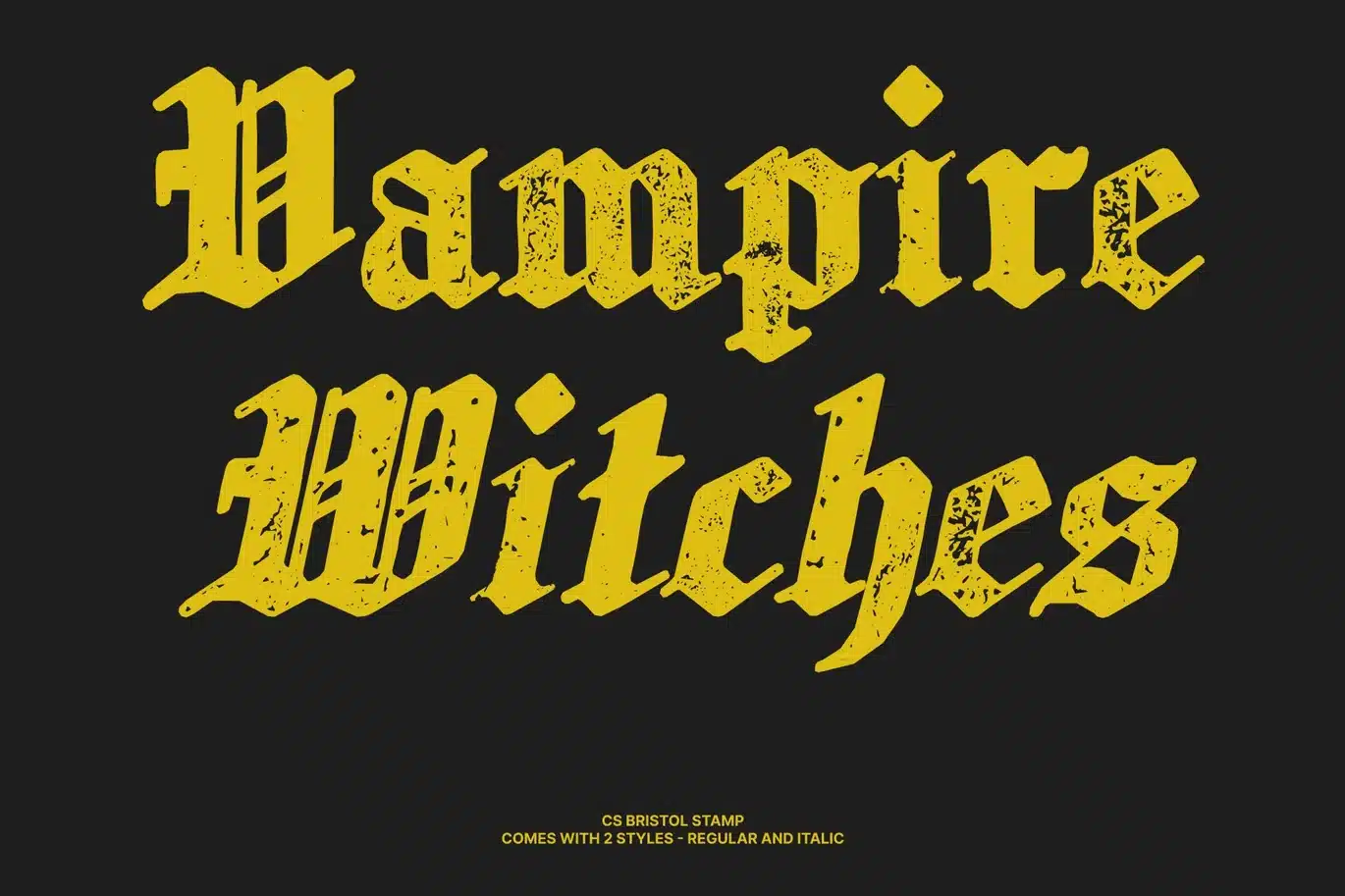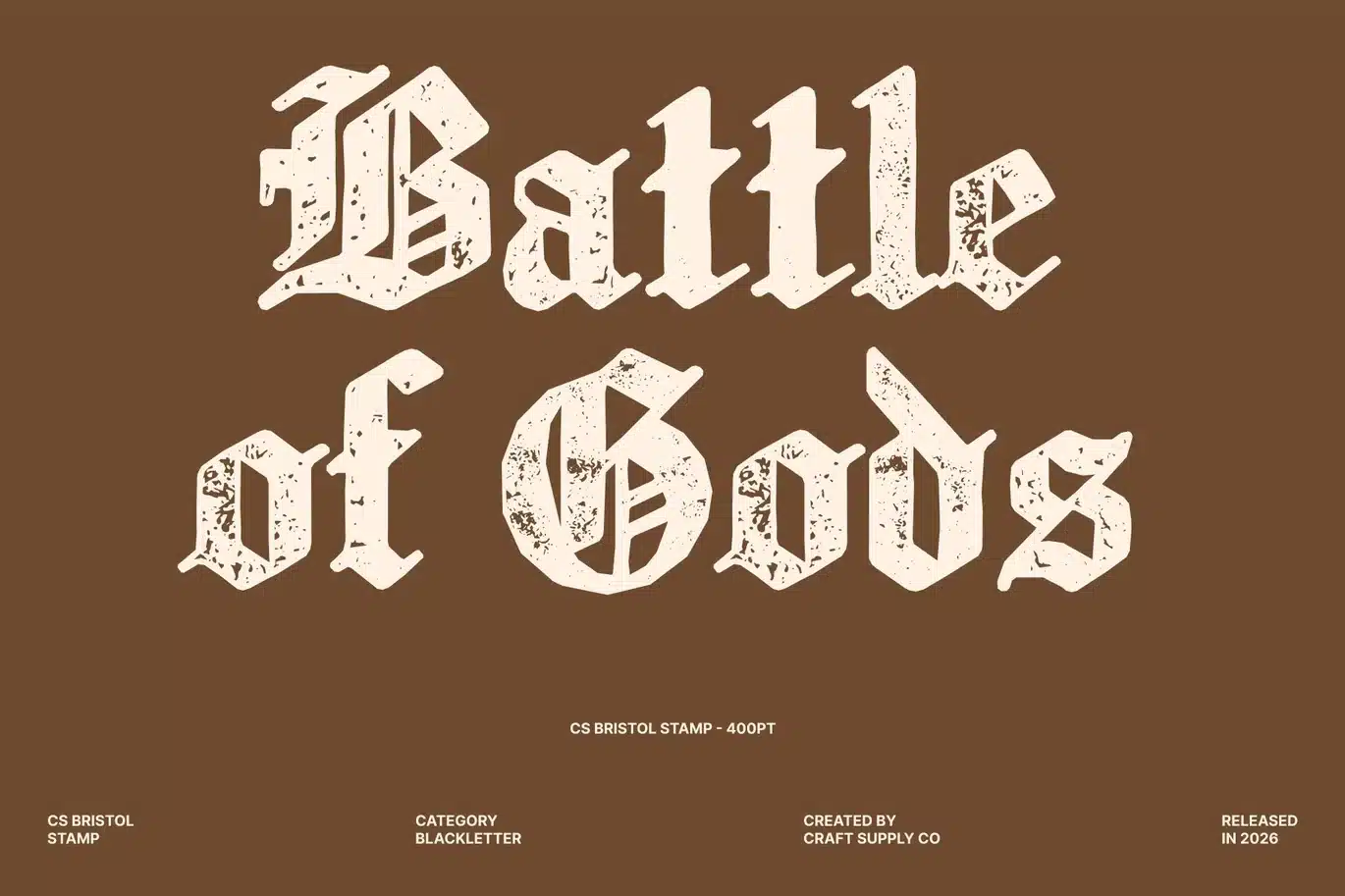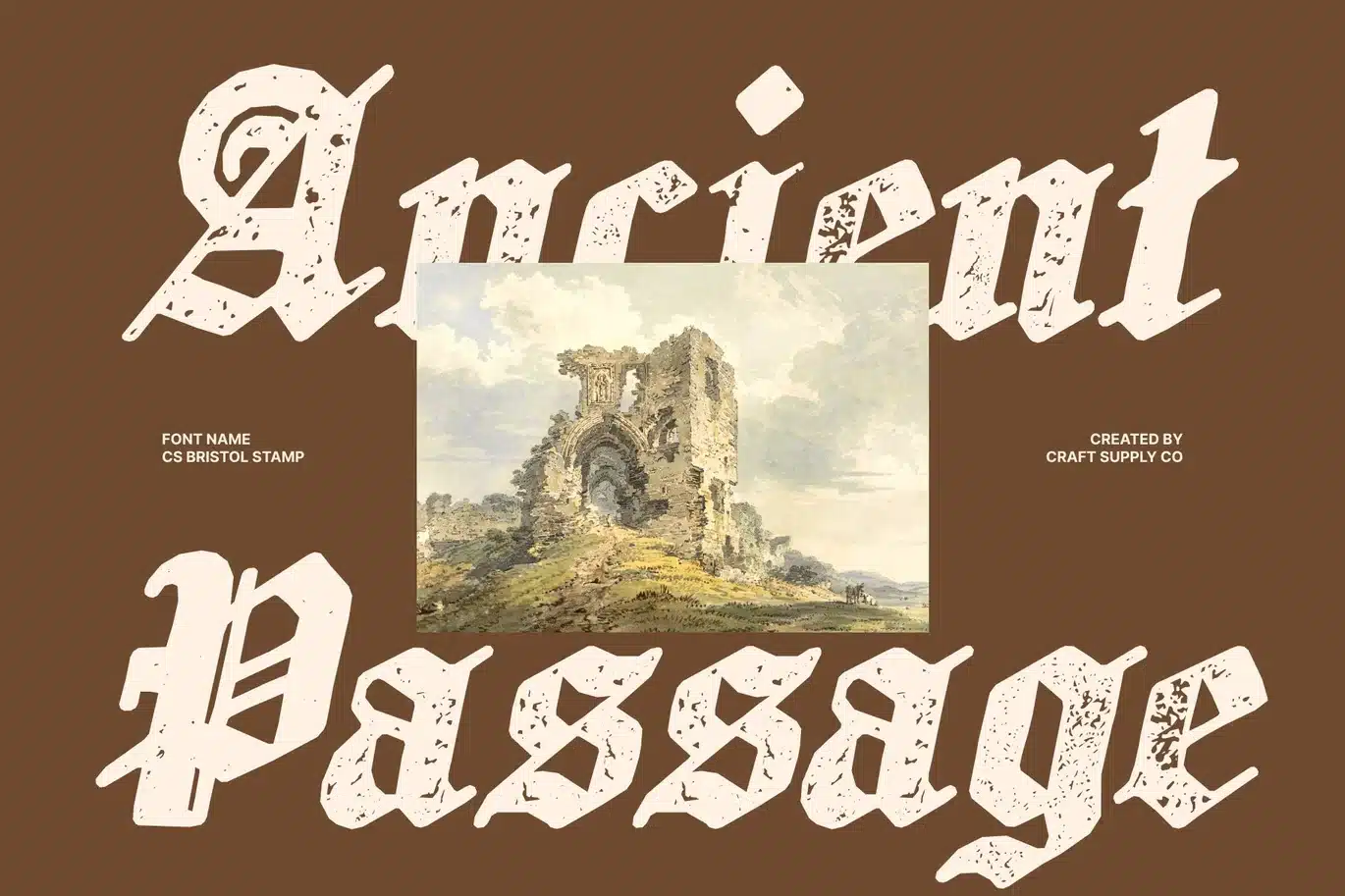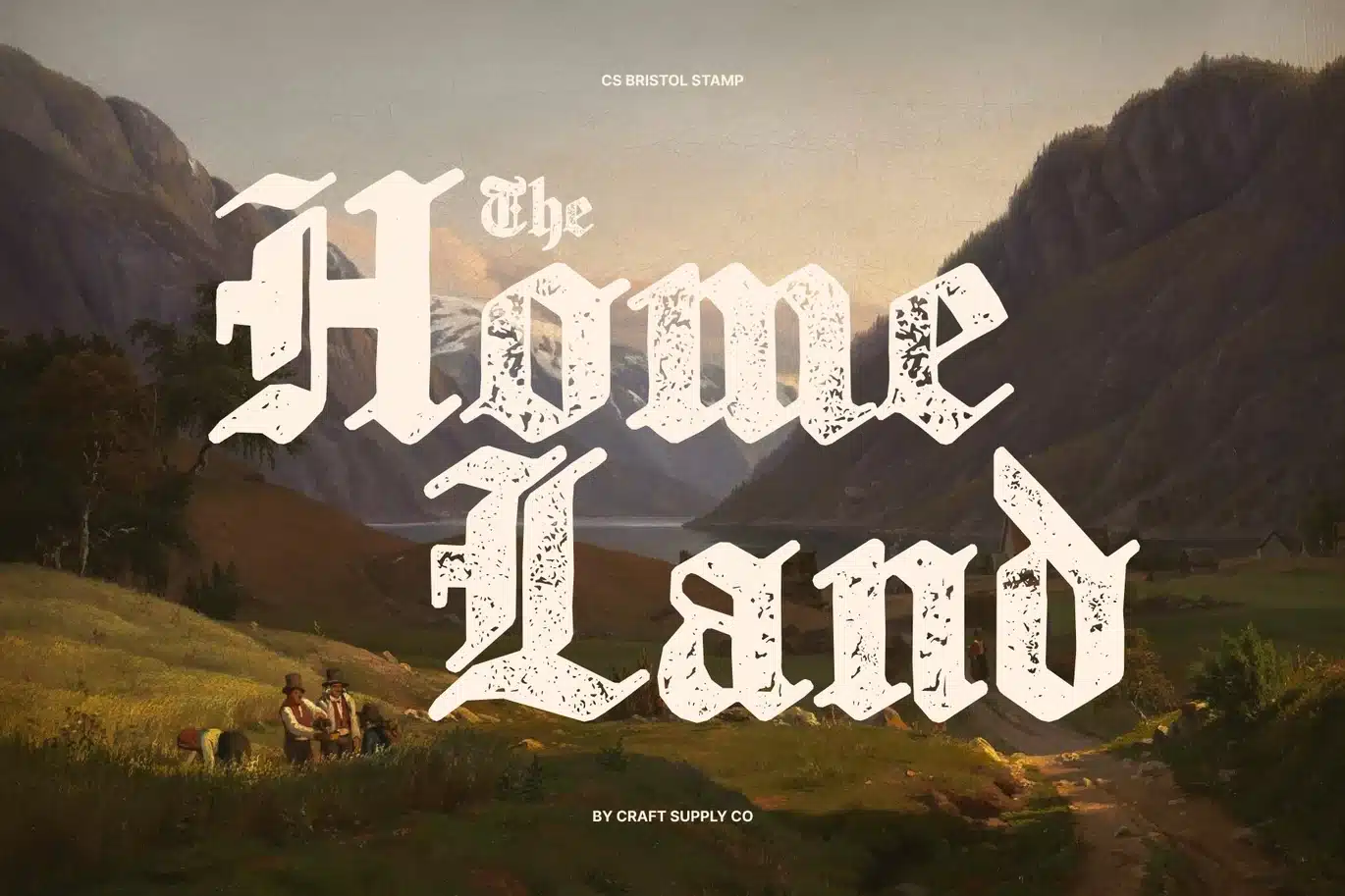
Bristol Stamp Font
CS Bristol Stamp – Blackletter Font with Historic Texture
Old English Blackletter Display Serif
This is a distinguished display serif typeface inspired by the timeless Old English blackletter tradition. Its bold, angular letterforms reflect the elegance and authority of historical English writing, while the stamped texture introduces a subtle handcrafted quality. This combination creates a typeface that feels both classic and artistically textured.
Ornate and Bold Design
Characterized by intricate details and strong structural strokes, captures the prestige of traditional blackletter typography. The decorative forms and sharp edges give the font a commanding presence, while the stamped effect adds depth and visual richness, enhancing its vintage and historical appeal.
Perfect for Formal and Historical Applications
This is ideal for projects that require a formal, traditional, or heritage-inspired aesthetic. From ceremonial invitations and certificates to editorial titles and themed posters, the font communicates elegance, tradition, and authority. Its bold blackletter structure ensures strong visual impact in display settings.
Versatile for Elegant and Prestigious Designs
With its blend of Old English heritage and textured character, works beautifully across a variety of sophisticated applications. Whether used in branding, historical-themed graphics, or decorative typography, it brings a sense of grandeur, authenticity, and timeless prestige to any design.